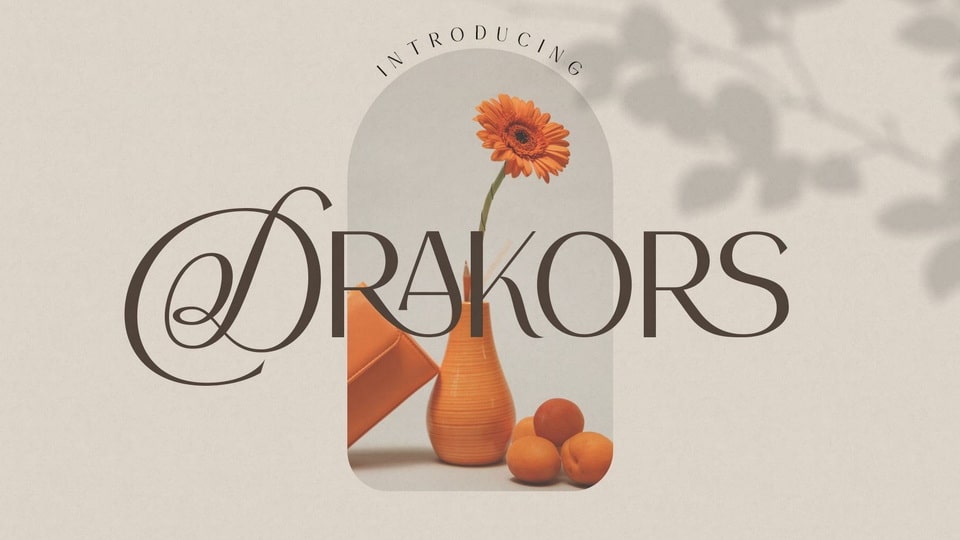
Download Drakors font, a modern display typeface designed by combining an elegant script with a simple and charming serif. It makes the Drakors font look different and unique from others.